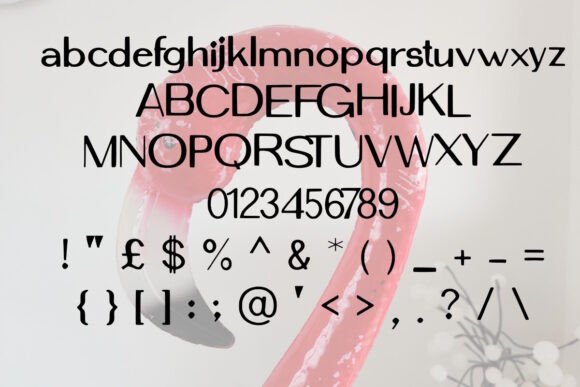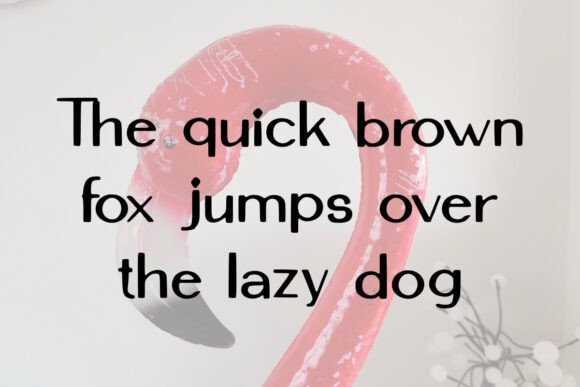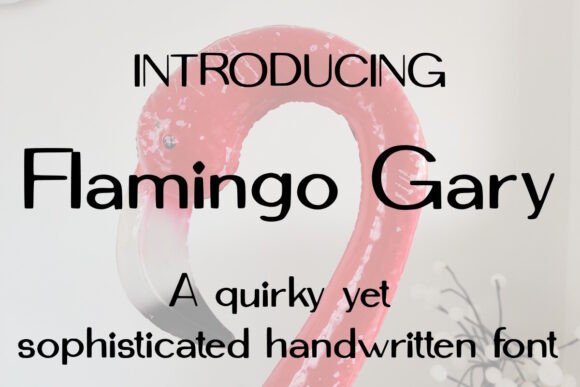
Introduction to Flamingo Gary Font
Add a touch of personality to your projects with Flamingo Gary, a distinctive handwritten font with smooth, rounded edges and a playful yet refined style.
Inspired by the one and only Gary the flamingo (an ornament of mine ), this font embodies a mix of fun, elegance, and a little bit of fabulous flair.
Key Features of Flamingo Gary Font